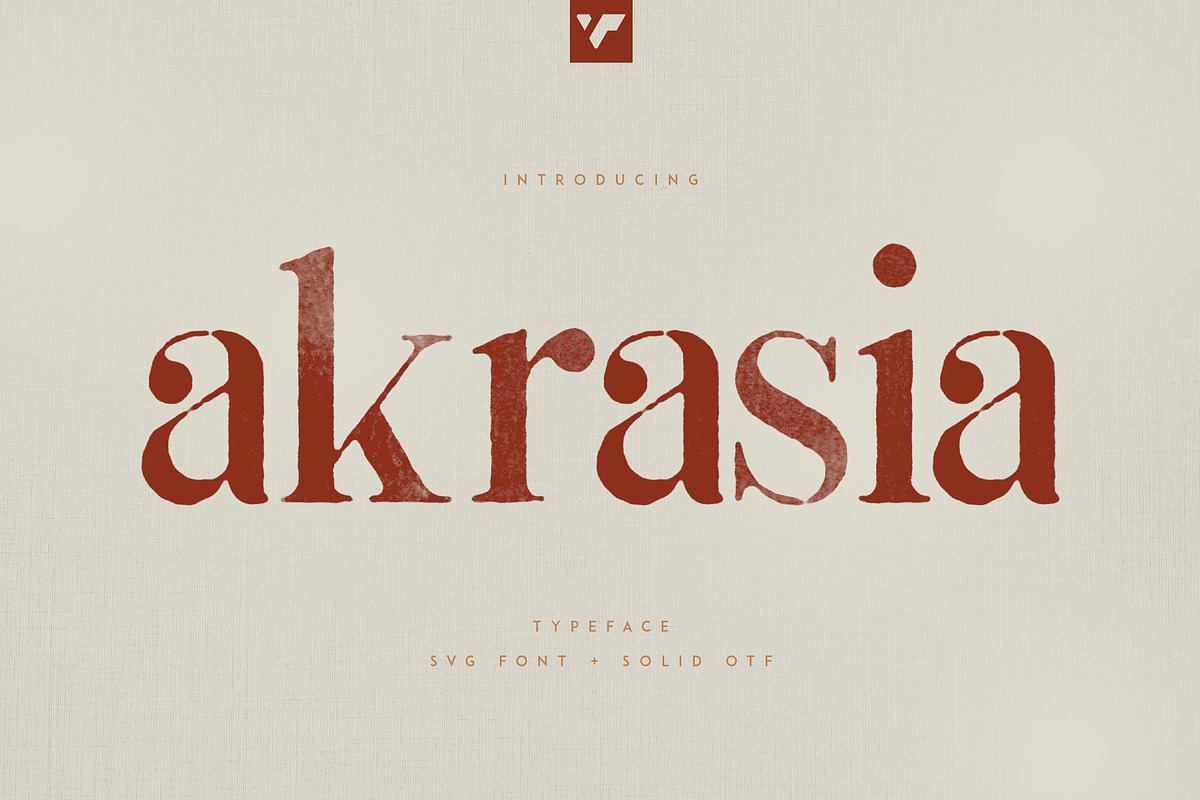
Akrasia Typeface - SVG + Solid Fonts Free Download is a bold and versatile font family offering both solid and SVG versions for dynamic, multi-dimensional designs. The SVG version of the font includes intricate details and colorful textures, making it perfect for creative projects that need an eye-catching, high-impact look. The solid version provides a cleaner, more traditional style, perfect for versatile usage across both print and digital platforms.
With its modern flair, Akrasia is ideal for branding, posters, product packaging, event promotions, and any project that calls for bold and stylish typography. Whether you’re creating vibrant visuals or clean, minimal designs, Akrasia provides the flexibility to meet your design needs.